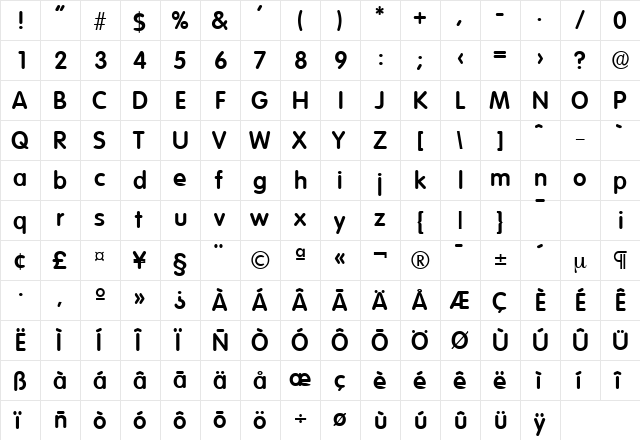
Volkswagen-Serial Bold
Design Context for Volkswagen-Serial Typeface
Volkswagen-Serial is a composed and adaptable typeface that performs quietly and consistently across a wide range of design contexts. The heavy weight commands attention and anchors typographic hierarchies.